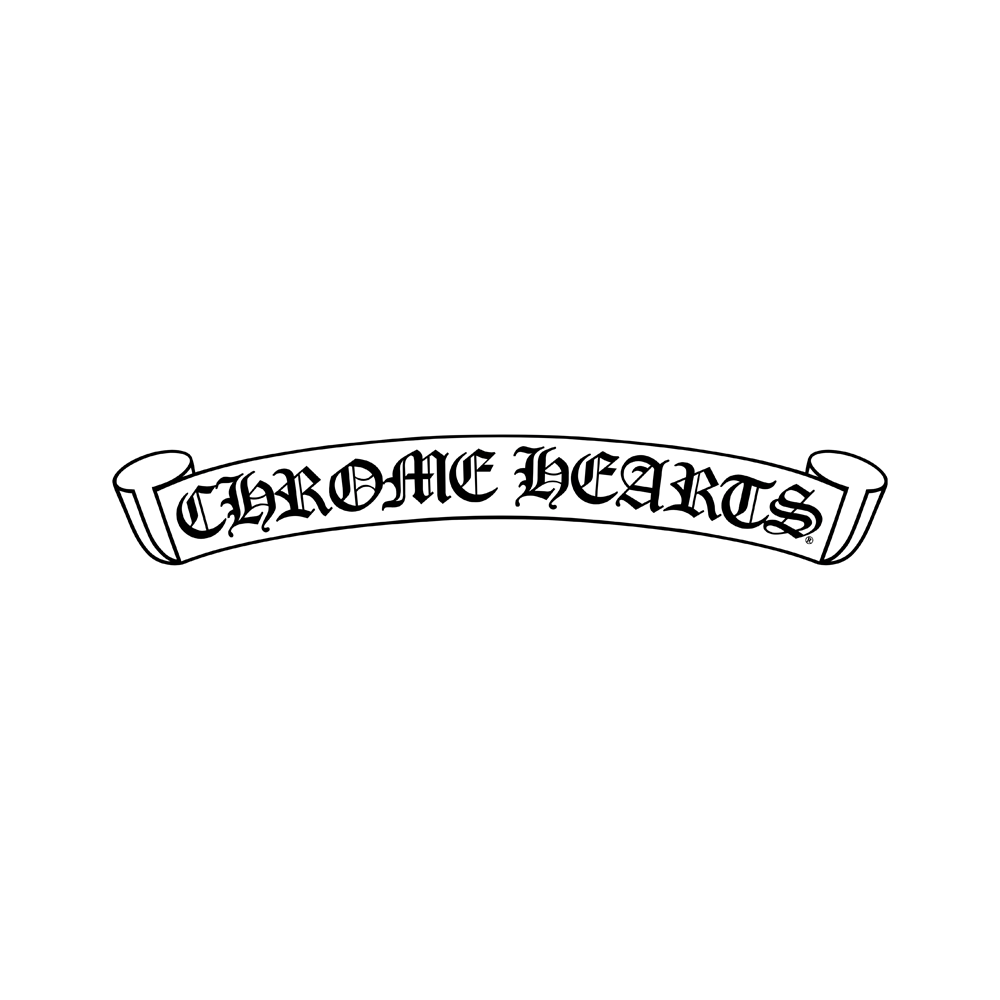
Chrome Hearts Font
LogoChrome Hearts is an American luxury brand known for its high-end silver jewelry and leather goods. It features gothic motifs and is popular among celebrities.
The Chrome Hearts letters look almost identical to Cloister Black by Typographer Mediengestaltung. The font is free for personal and commercial use.